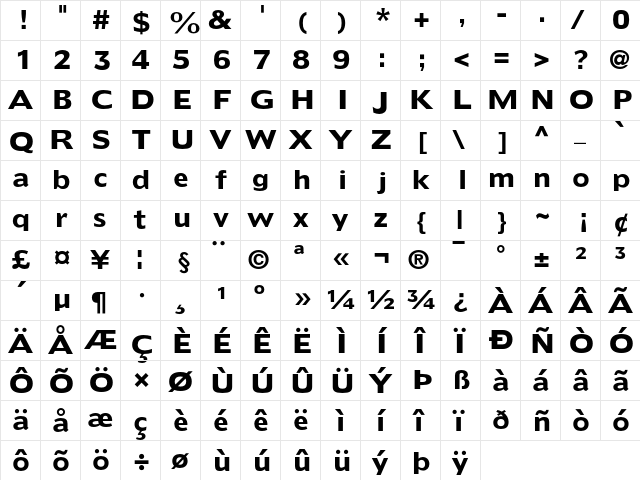
Doric Bold
Design Context for Doric Typeface
Doric is a composed and adaptable typeface that performs quietly and consistently across a wide range of design contexts. Its bold stroke weight gives it real presence on the page.